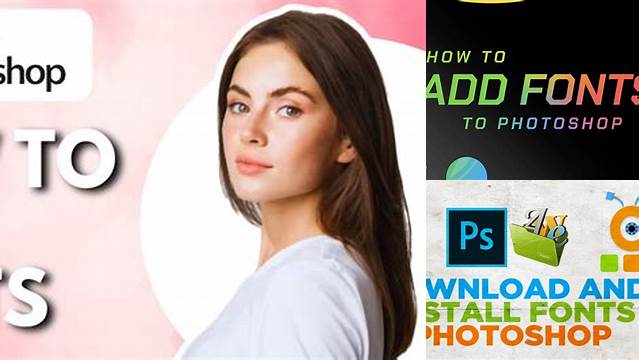
Install Fonts In Photoshop: A Simple Guide
Installing new fonts in Photoshop can greatly expand your creative possibilities, allowing you to add unique and personalized typography to your designs. Whether you're a seasoned designer or just starting, knowing how to properly install and manage fonts in Photoshop is a crucial skill. This guide will walk you through everything you need to know about photoshop fonts install, from finding and downloading fonts to installing them on your operating system and using them in Photoshop.
Finding and Downloading Fonts
Before you download any fonts, consider what kind of project you are working on. Are you designing a logo, creating social media graphics, or working on a print project? Different fonts are suitable for different purposes. For example, a clean and modern sans-serif font might be ideal for a logo, while a decorative script font might be better suited for a wedding invitation. Also, think about the mood and tone you want to convey with your design. A bold and strong font can convey confidence and authority, while a light and airy font can convey elegance and sophistication. Choosing the right font can significantly impact the overall message and effectiveness of your design.
Windows
- Locate the font files: Go to the folder where you extracted the font files (usually .OTF or .TTF files).
- Right-click on the font file(s): Select the font files you want to install, right-click on them, and choose "Install". You can select multiple font files at once to install them in bulk.
- Alternatively, use the Fonts control panel:
- Open the Control Panel and go to "Appearance and Personalization" > "Fonts".
- Drag and drop the font files into the Fonts folder.
Windows will automatically install the fonts, making them available for use in Photoshop and other applications. Sometimes, you may need to restart Photoshop or your computer for the newly installed fonts to appear in the font list. To verify that the fonts have been installed correctly, open the Fonts control panel and check if the fonts are listed there. You can also preview the fonts in the Fonts control panel to see how they look.
macOS
- Locate the font files: Go to the folder where you extracted the font files (usually .OTF or .TTF files).
- Double-click on the font file(s): This will open the Font Book application.
- Click "Install Font": In the Font Book window, click the "Install Font" button to install the font.
Alternatively, you can drag and drop the font files directly into the Font Book application. macOS will validate the fonts and install them, making them available for use in Photoshop and other applications. Similar to Windows, you may need to restart Photoshop or your computer for the newly installed fonts to appear in the font list. To manage your installed fonts, you can use the Font Book application, which allows you to activate, deactivate, and remove fonts.
Installing and managing fonts in Photoshop is a straightforward process that can significantly enhance your design capabilities. By following the steps outlined in this guide, you can easily expand your font library, install fonts on your operating system, and use them in Photoshop to create visually appealing and engaging designs. Remember to choose reputable sources for downloading fonts, check the font licenses, and keep your fonts organized for easy access. With a little practice, you'll be able to master the art of typography and take your Photoshop skills to the next level. Now that you understand the ins and outs of photoshop fonts install, go forth and create amazing designs with your newfound typographic prowess!